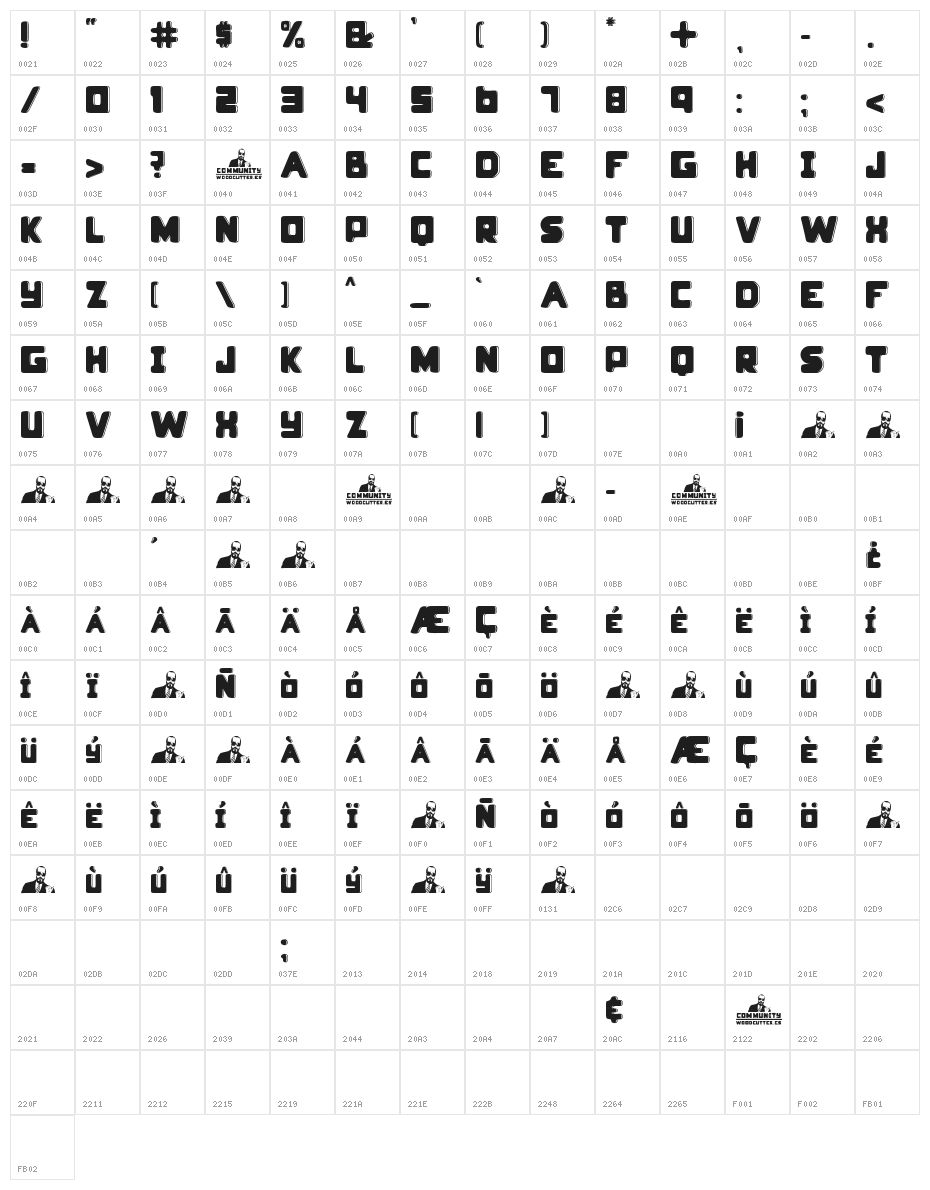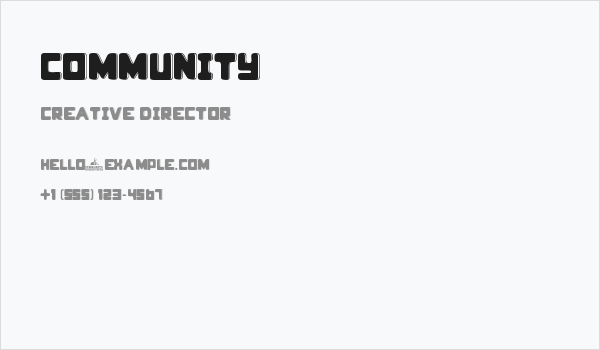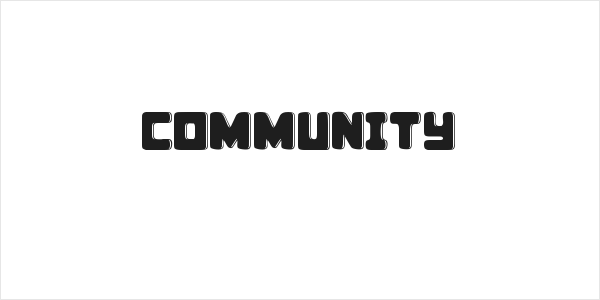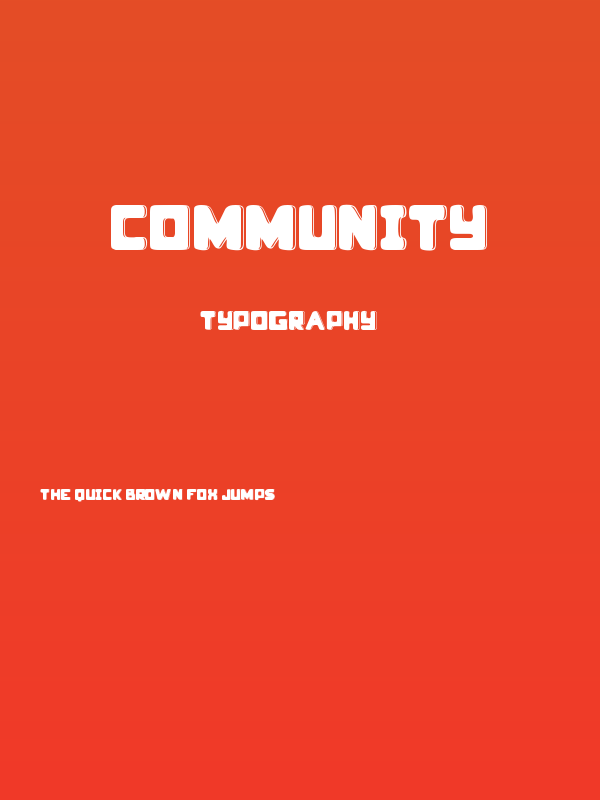
community Font
community Description
This font features a bold, playful design with rounded edges and a bubble-like appearance. The characters are uniformly thick, giving it a strong presence and a modern, fun vibe. The uppercase and lowercase letters maintain a consistent style, making it easy to read while still being visually engaging. The numbers and special characters follow the same design principles, ensuring a cohesive look across all elements. This font's unique style makes it stand out, perfect for projects that require a touch of whimsy and boldness.
| Proposed Projects | Ideal for children's books, playful branding, posters, and creative advertising. |